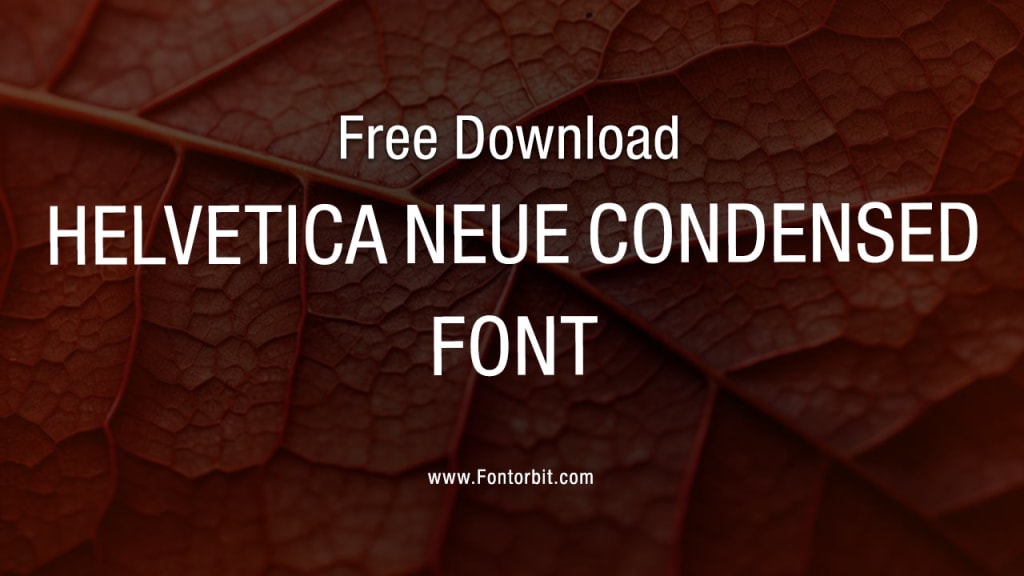
Helvetica Neue Condensed Font: A Comprehensive Overview
Helvetica Neue Condensed Font
Helvetica Neue Condensed is a versatile typeface that has earned its place as a favorite among designers worldwide.
Known for its clean lines and modern appeal, this font is a part of the Helvetica Neue family, which builds upon the legacy of the original Helvetica typeface introduced in 1957. Let’s explore the features, uses, and nuances of Helvetica Neue Condensed to understand why it’s such a celebrated choice in typography.
Features of Helvetica Neue Condensed
Slim Design: Helvetica Neue Condensed is characterized by its narrow and sleek letterforms, making it an excellent choice for situations where space is limited but readability is crucial.
Legibility: Despite its condensed structure, this font retains high legibility even at smaller sizes, thanks to its balanced proportions and clean design.
Versatility: It is available in multiple weights and styles, from thin to bold, providing flexibility for a wide range of design applications.
Neutral Aesthetic: Like other Helvetica variants, the Condensed version offers a neutral and timeless appearance that doesn’t overpower the content it displays.
Applications of Helvetica Neue Condensed
1. Editorial Design
Magazines, newspapers, and books often use Helvetica Neue Condensed for headlines and subheadings. Its ability to fit more text into constrained spaces without sacrificing clarity makes it ideal for print layouts.
2. Branding and Advertising
The font’s professional and modern look is perfect for logos, advertisements, and corporate identities. It communicates a sense of sophistication and reliability.
3. Web Design
As digital interfaces demand clarity and minimalism, Helvetica Neue Condensed finds its place in website headers, navigation menus, and banners.
4. Packaging Design
The narrow design allows for elegant typography on product packaging, enabling brands to convey information while maintaining aesthetic appeal.
Why Designers Love Helvetica Neue Condensed
Helvetica Neue Condensed’s appeal lies in its balance of form and function. It combines the clean, modernist ethos of the original Helvetica with a compact structure that’s practical for many design challenges.
Whether you’re working on a print project or a digital interface, this font adapts seamlessly to the context, making it a reliable choice for professionals.
Conclusion
Helvetica Neue Condensed is more than just a typeface; it’s a tool that empowers designers to communicate effectively and aesthetically.
Its adaptability, clarity, and timeless design ensure its continued relevance in the ever-evolving world of typography. Whether you’re crafting a brand identity or laying out editorial content, Helvetica Neue Condensed stands out as a dependable and elegant option.
FAQs about Helvetica Neue Condensed Font
1. What is Helvetica Neue Condensed?
Helvetica Neue Condensed is a narrower version of the Helvetica Neue typeface family, known for its clean, modern design and versatility.
3. What are the best uses for Helvetica Neue Condensed?
It is ideal for editorial design, branding, advertising, web design, and packaging due to its compact and legible structure.
4. Can I use Helvetica Neue Condensed for body text?
While it is legible, Helvetica Neue Condensed is better suited for headlines, subheadings, and display text. For body text, a standard width version of Helvetica Neue may be more appropriate.
5. How does Helvetica Neue Condensed differ from Helvetica Neue?
Helvetica Neue Condensed has narrower letterforms compared to the standard Helvetica Neue, making it more space-efficient while maintaining clarity.
7. Are there alternatives to Helvetica Neue Condensed?
Yes, alternatives include Arial Narrow, Univers Condensed, and Roboto Condensed, depending on your design needs and preferences.